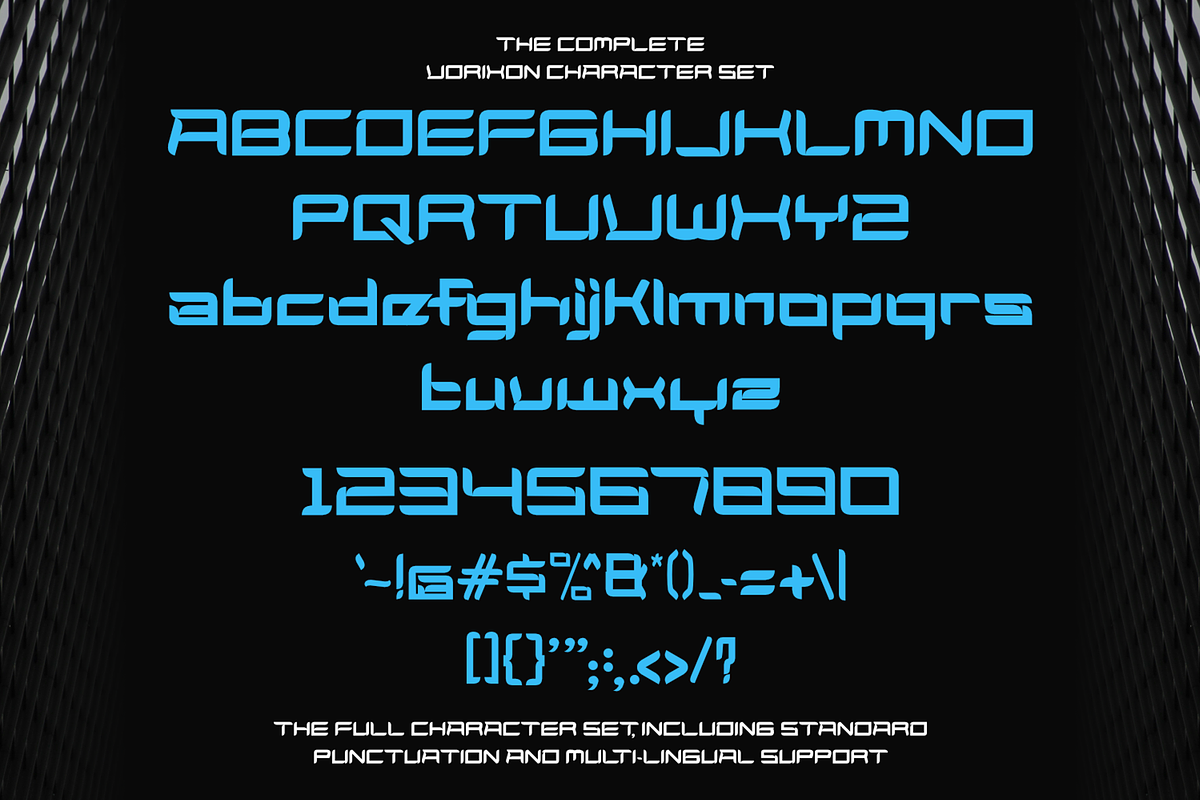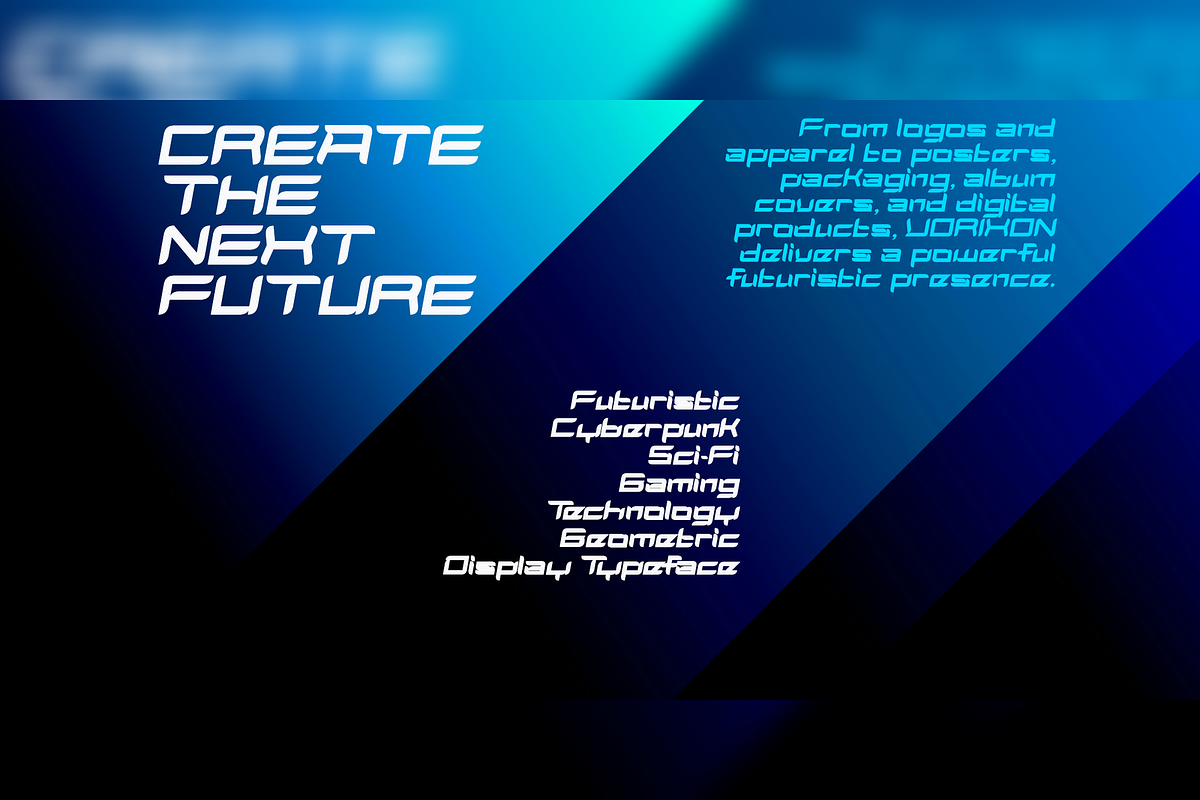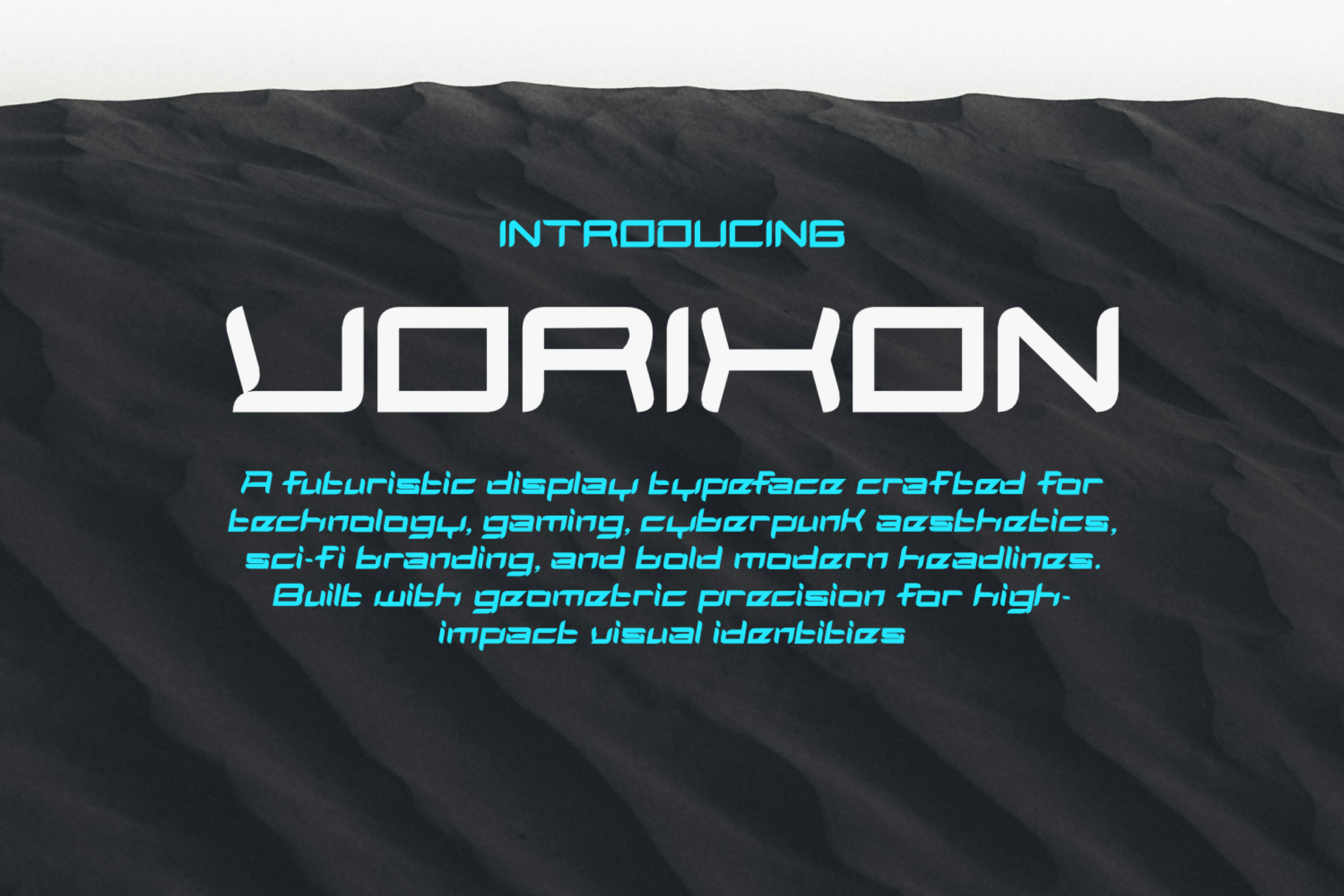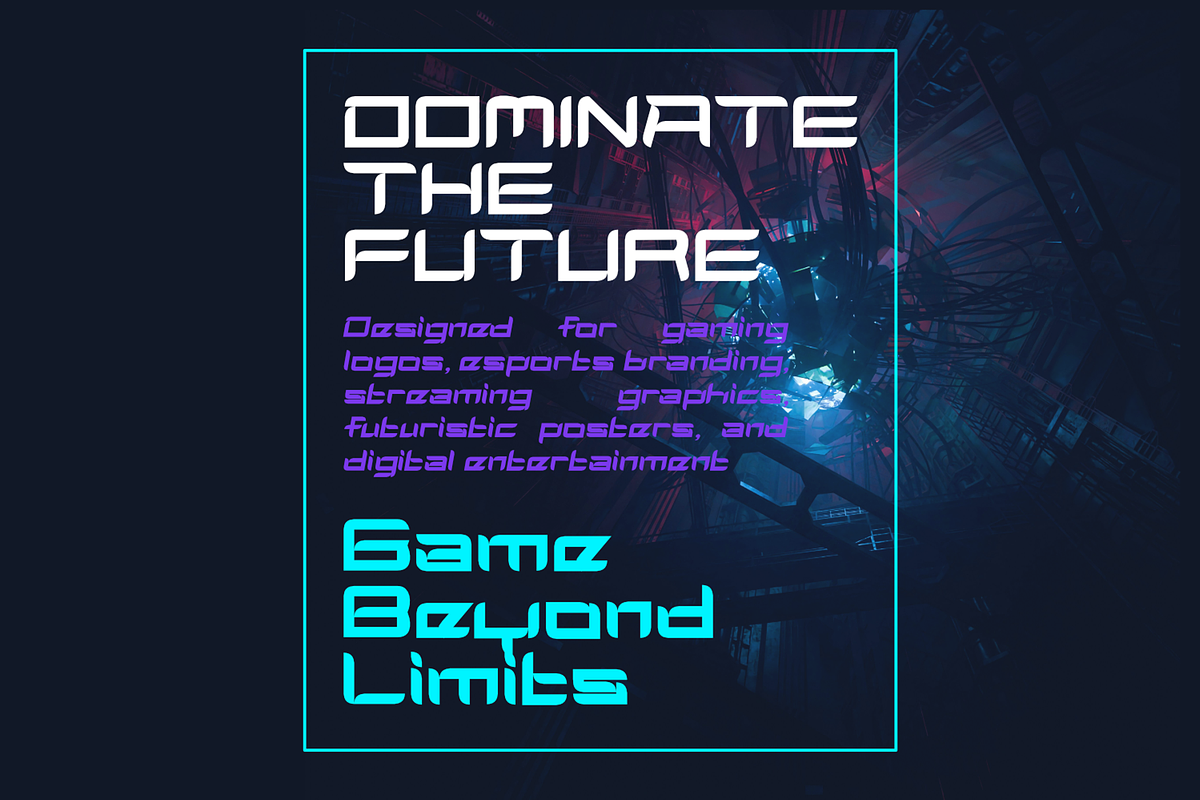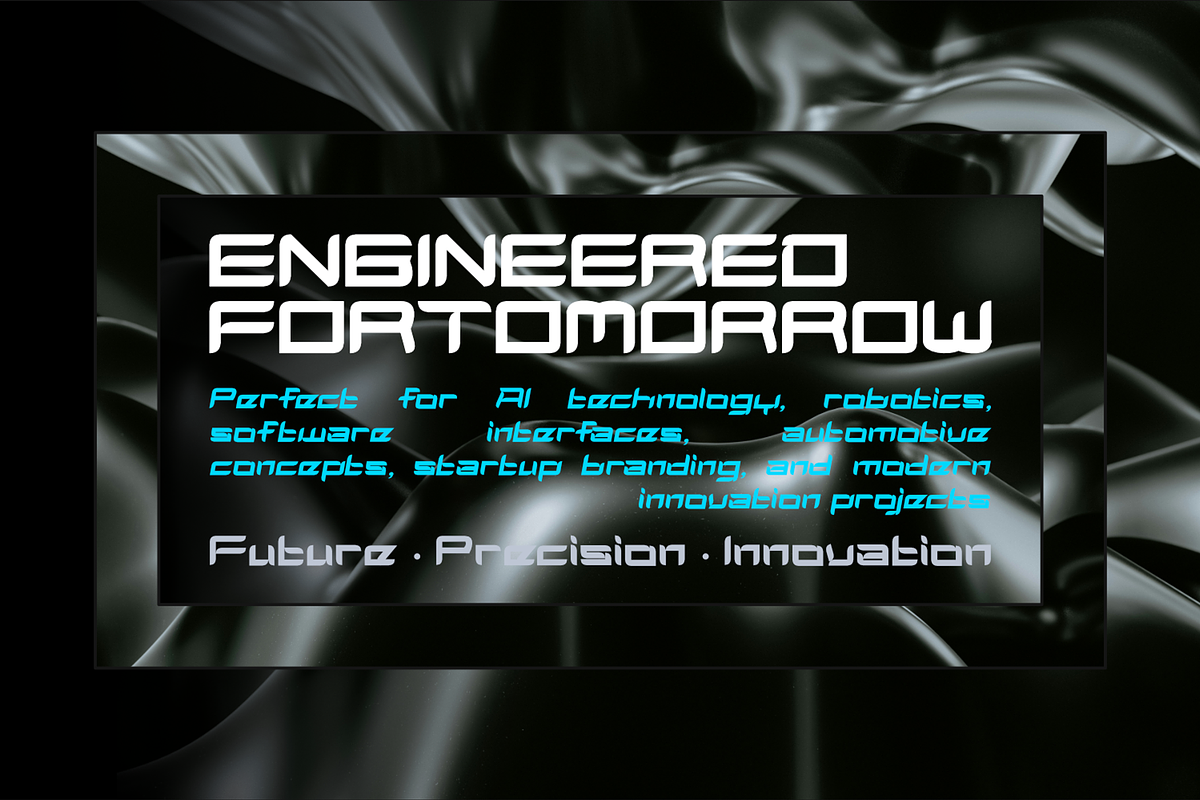
Vorixon Futuristic Display Font
VORIXON is a bold futuristic display typeface that blends geometric precision with sleek cyber-inspired forms. Designed to make a powerful visual statement, it is perfect for technology branding, gaming titles, sci-fi posters, esports identities, UI interfaces, automotive concepts, and modern digital projects. With its clean lines and high-tech aesthetic, VORIXON brings a cutting-edge look to logos, headlines, packaging, apparel, and creative branding, making every design feel innovative, dynamic, and unmistakably futuristic.
Regular & Italic